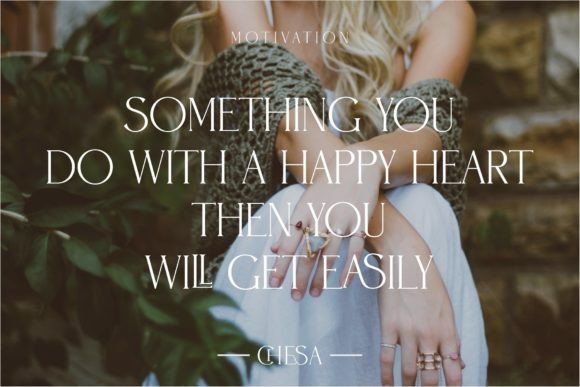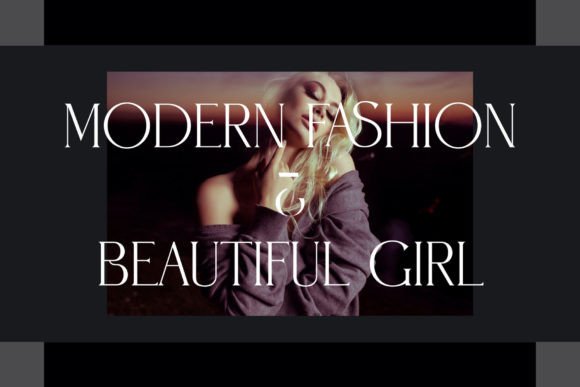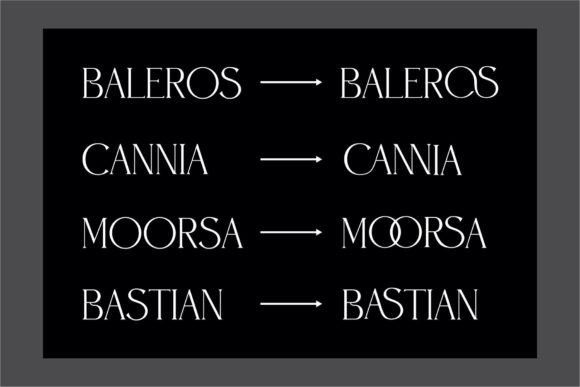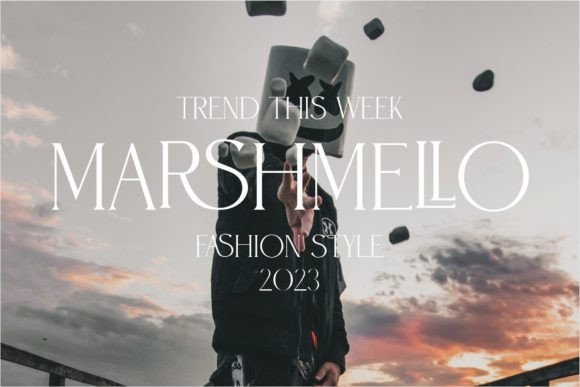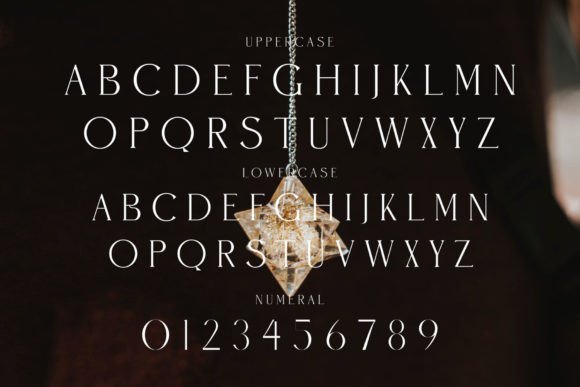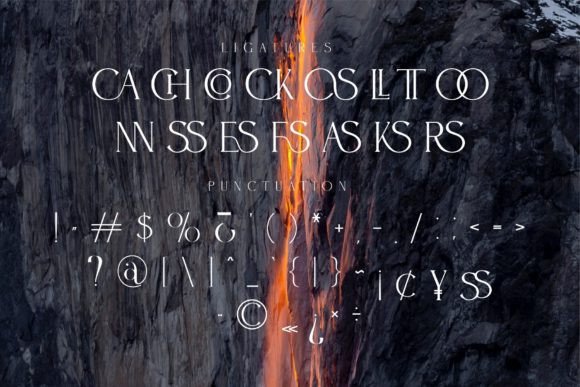
Discover the Elegance of Chesa Font: A Work of Art for Your Designs
In the world of typography, few fonts manage to strike a balance between delicacy and boldness. Chesa Font is one such exceptional typeface that embodies both elegance and confidence. With its graceful curves, swirls, and intricate details, Chesa Font is a masterpiece that can elevate any design to new heights of sophistication.
The Unique Characteristics of Chesa Font
Chesa Font is a serif typeface that boasts a modern and luxurious aesthetic. Its delicate yet bold style makes it an ideal choice for designers looking to add a touch of refinement to their projects. The font’s exquisite lines and curves are meticulously crafted to create a sense of fluidity and harmony, making it perfect for a wide range of design applications.
A Work of Art for Designers and Crafters
Chesa Font is more than just a typeface; it’s a work of art that can transform your designs into stunning visual experiences. Whether you’re a designer, crafter, or artist, this font offers endless possibilities for creative expression. From elegant wedding invitations and luxury branding to sophisticated packaging and editorial design, Chesa Font is the perfect choice for anyone looking to add a touch of elegance to their work.
PUA Encoding for Easy Access to Glyphs and Ligatures
One of the standout features of Chesa Font is its PUA (Private Use Area) encoding. This means that you can easily access all the amazing glyphs and ligatures without any hassle. PUA encoding allows you to unlock the full potential of the font, giving you the creative freedom to experiment with different typographic combinations and styles.
Why Choose Chesa Font?
So, what sets Chesa Font apart from other typefaces? Here are just a few reasons why designers and crafters love this font:
- Delicate yet bold style: Chesa Font strikes the perfect balance between elegance and confidence.
- Modern and luxurious look: Its sleek lines and curves give it a sophisticated aesthetic that’s perfect for high-end designs.
- Intricate details and exquisite lines: The font’s attention to detail makes it a joy to work with and a pleasure to behold.
- PUA encoded for easy access: Unlock the full potential of the font with PUA encoding, making it easy to access glyphs and ligatures.
How to Use Chesa Font in Your Designs
Chesa Font is incredibly versatile and can be used in a variety of design applications. Here are a few ideas to get you started:
- Wedding invitations and stationery: Add a touch of elegance to your wedding designs with Chesa Font’s sophisticated style.
- Luxury branding and packaging: Elevate your brand with a font that exudes luxury and refinement.
- Editorial design and publishing: Use Chesa Font to add a touch of sophistication to your editorial designs, such as magazines, books, and newspapers.
- Digital design and web typography: Chesa Font is perfect for digital designs, including website headers, social media graphics, and more.
| Font Name | Chesa Font |
| Author | Alfinart |
Chesa Font is a true masterpiece of typography that offers a unique blend of elegance, sophistication, and creativity. With its delicate yet bold style, modern and luxurious look, and PUA encoding for easy access to glyphs and ligatures, this font is a must-have for designers and crafters looking to elevate their designs to new heights. Whether you’re working on a wedding invitation, luxury brand, or editorial design, Chesa Font is the perfect choice for adding a touch of refinement and sophistication.